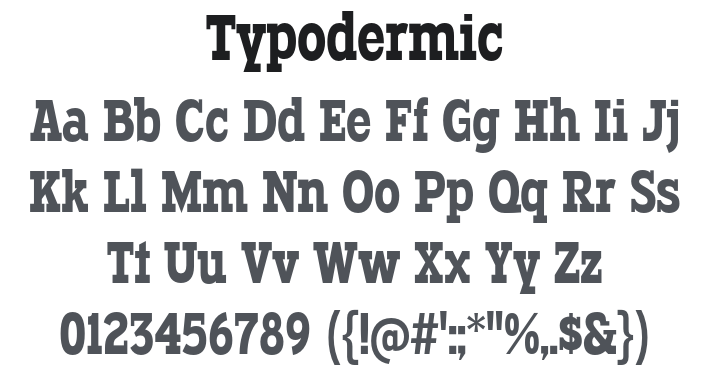
Typodermic Font
About Typodermic
Typodermic is a bold, authoritative slab-serif display typeface with distinctive, confident letterforms — thick strokes paired with sturdy rectangular serifs give it a commanding, self-assured presence that feels both modern and timeless. Its striking fashion-forward character makes it versatile across display sizes. Perfect for editorial headlines, branding, magazine mastheads, product packaging, and any design needing powerful, no-nonsense typographic authority.